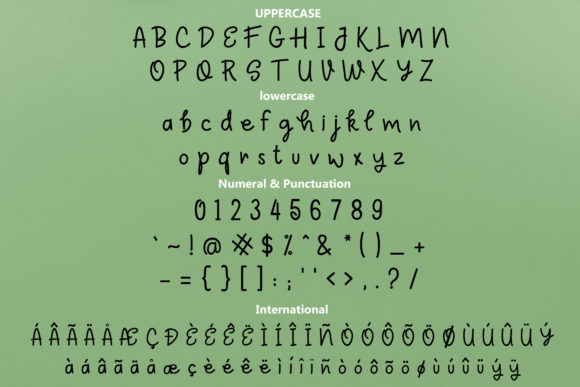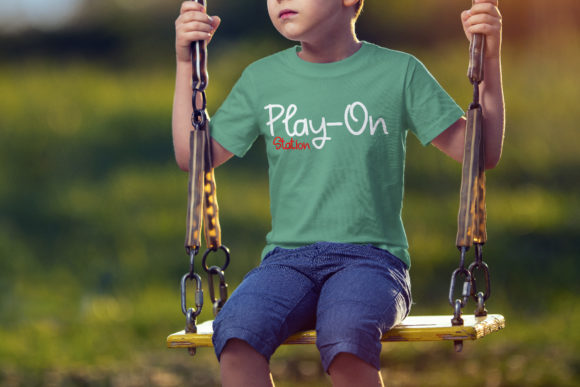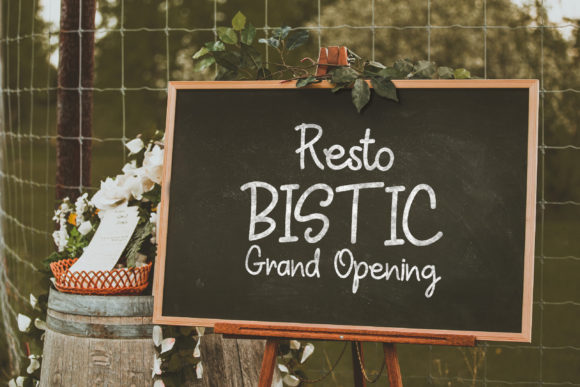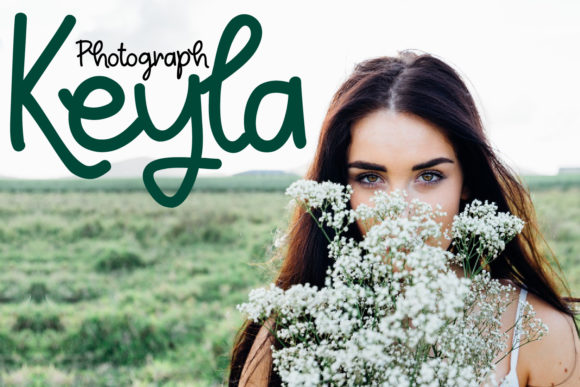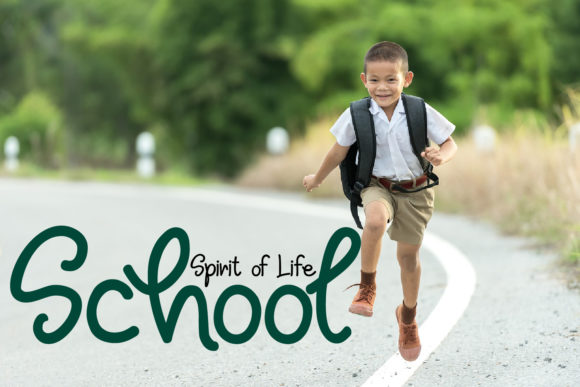
Sathos Font
About Sathos Font
Sathos is a friendly and stylish handwritten font. Fall in love with its incredibly versatile style and use it to create spectacular designs!